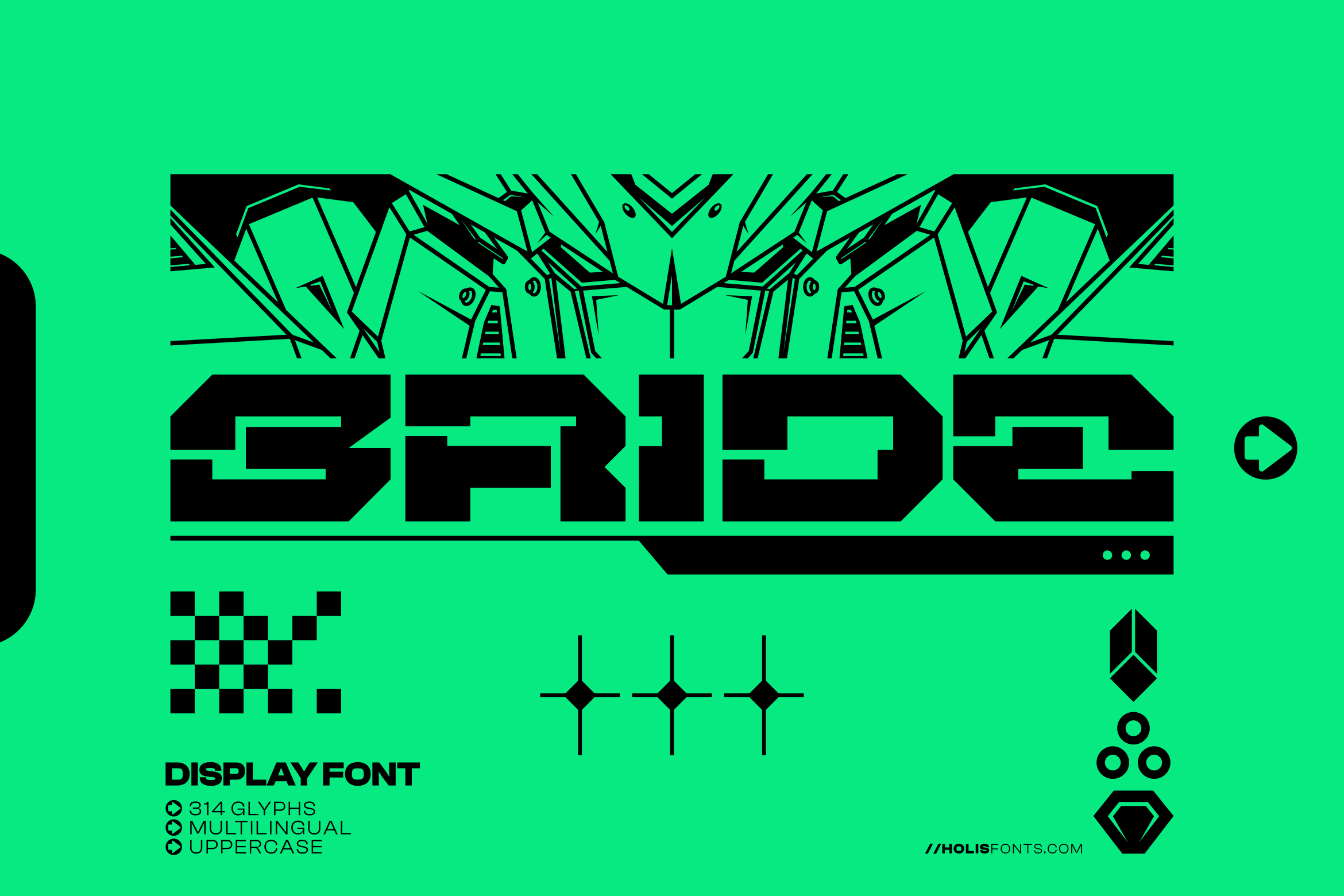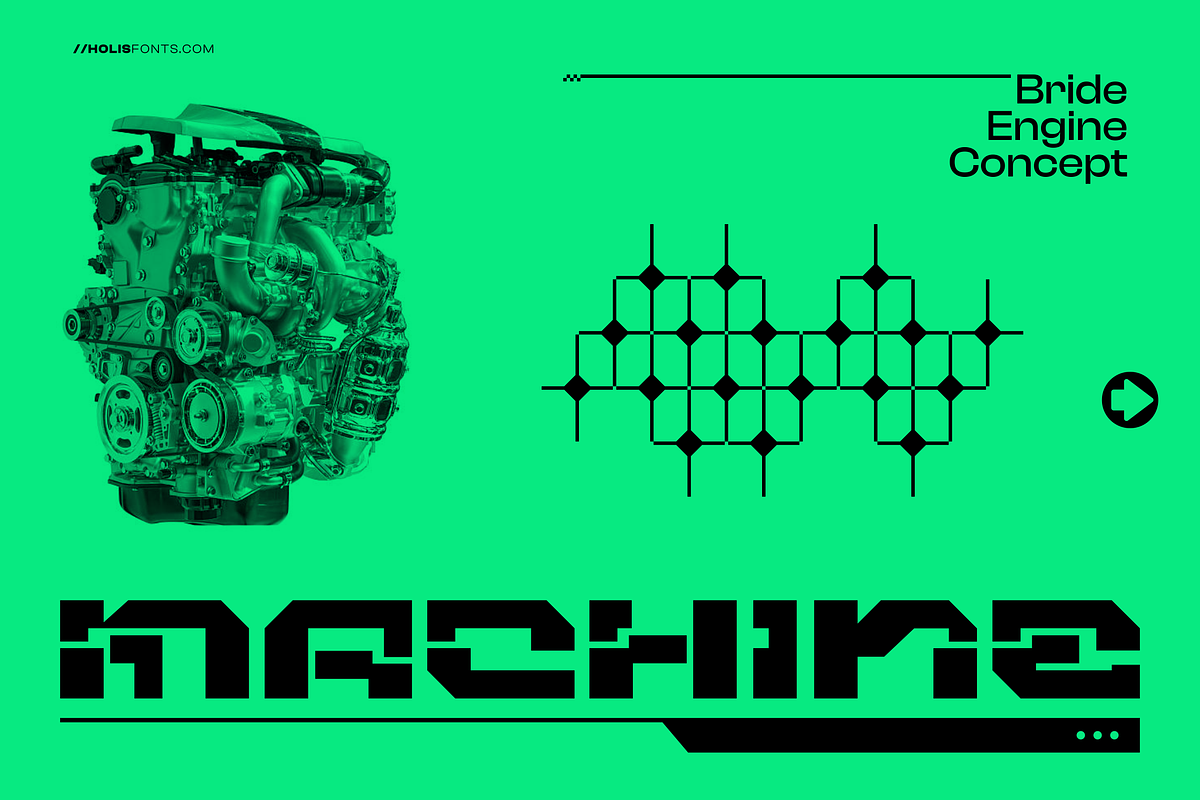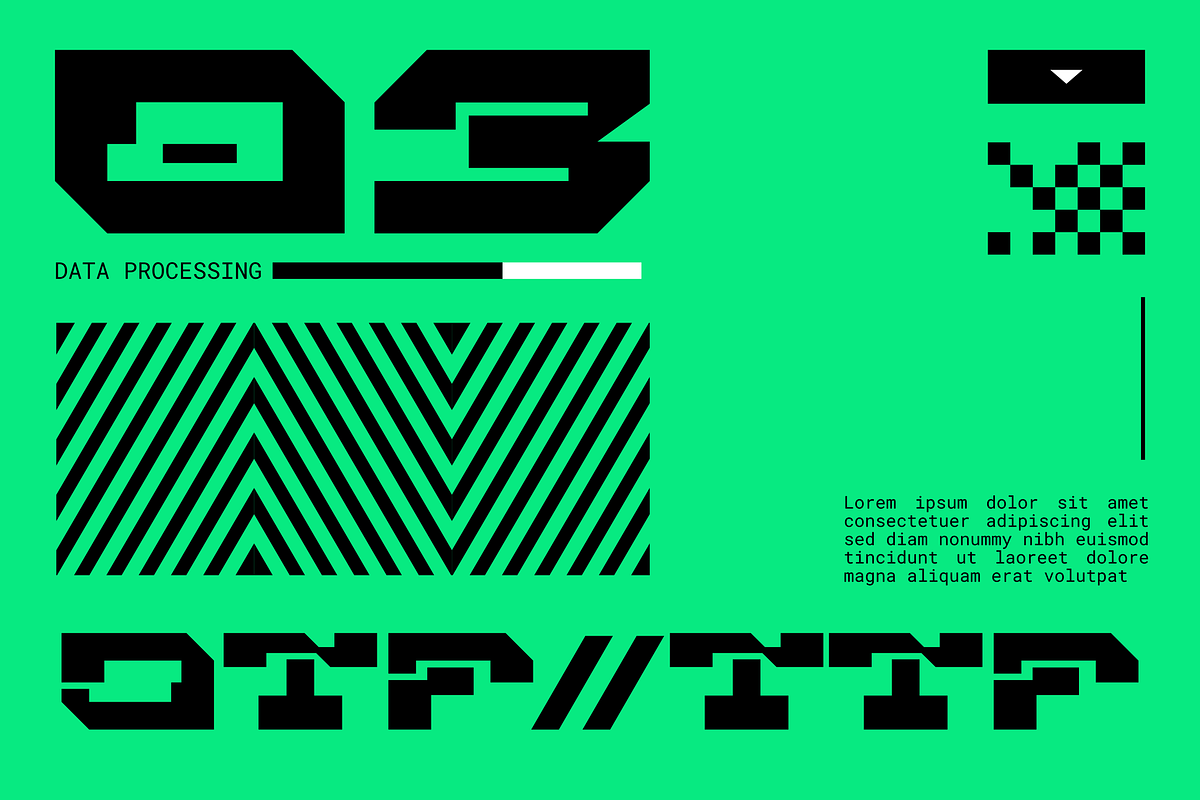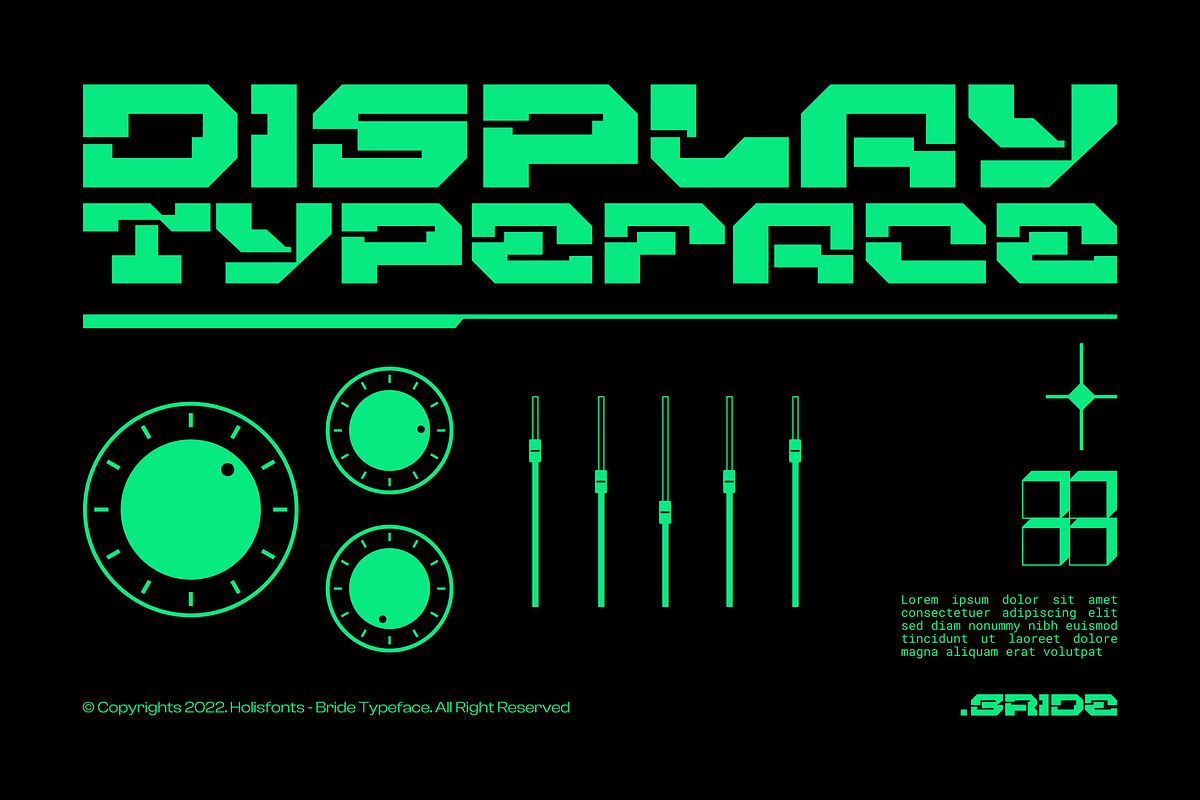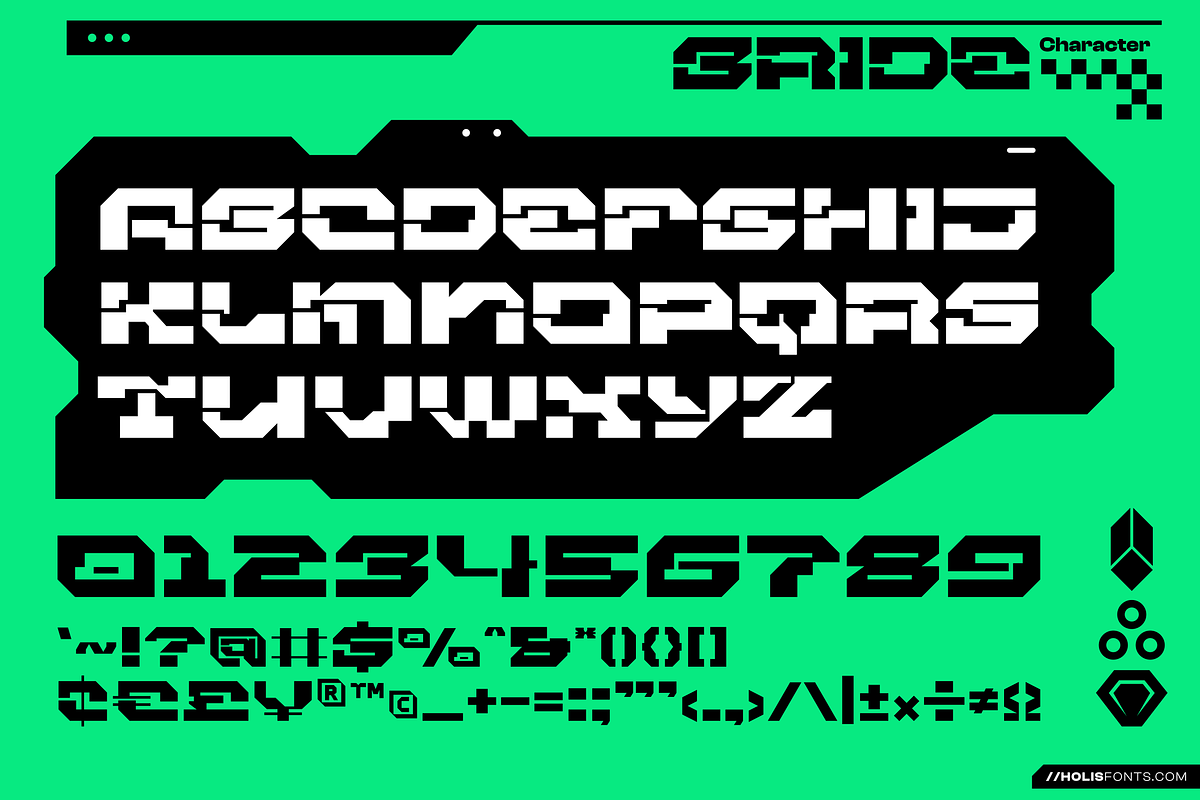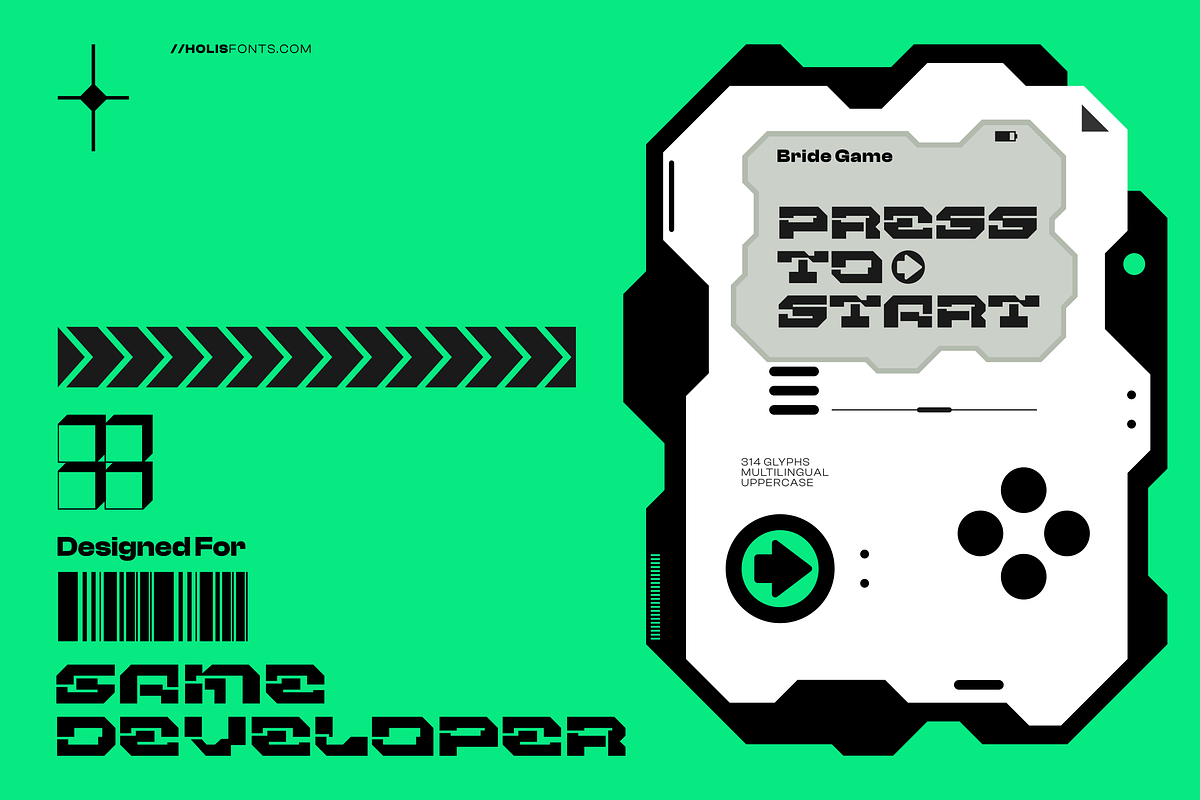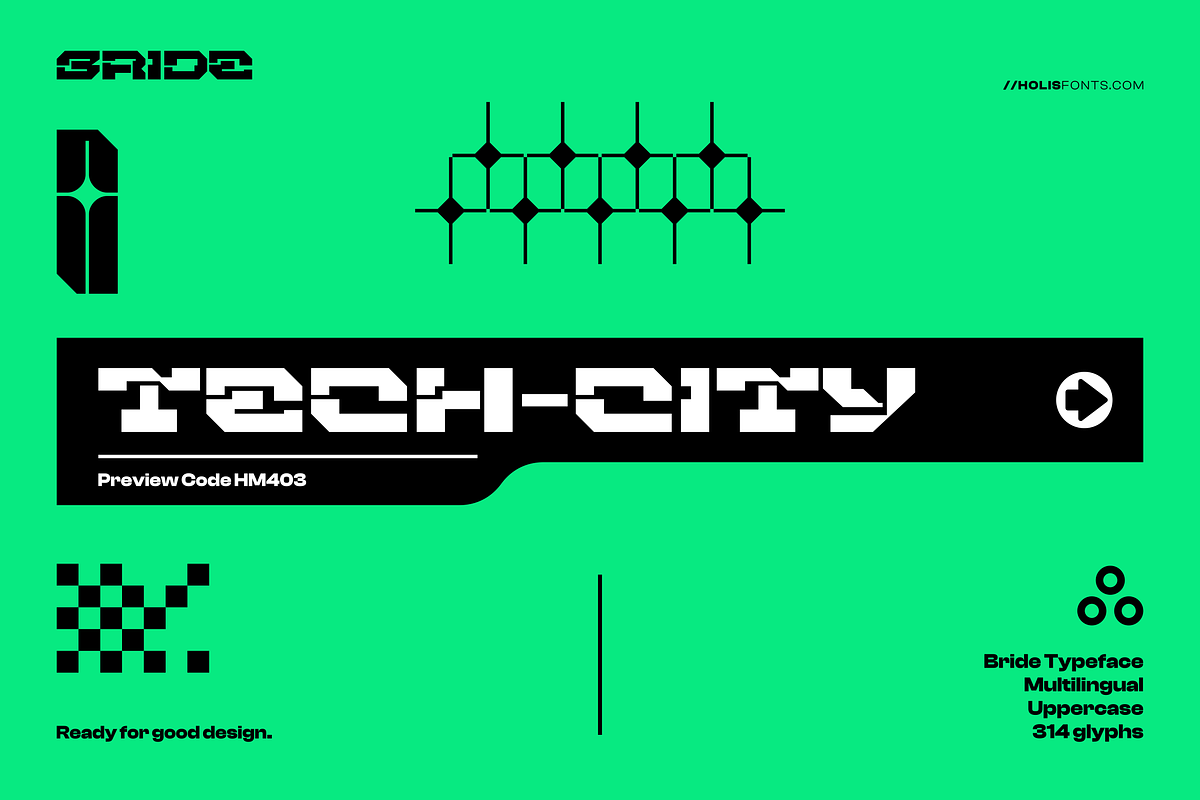
Bride Typeface Robot
Bride is a typeface designed in a futuristic style suitable for modern things. This font is inspired by mecha/robot designs scattered on the internet, suitable for logos, poster designs, t-shirt designs, etc.
- All Uppercase
- Numeral
- Punctuation and Symbol